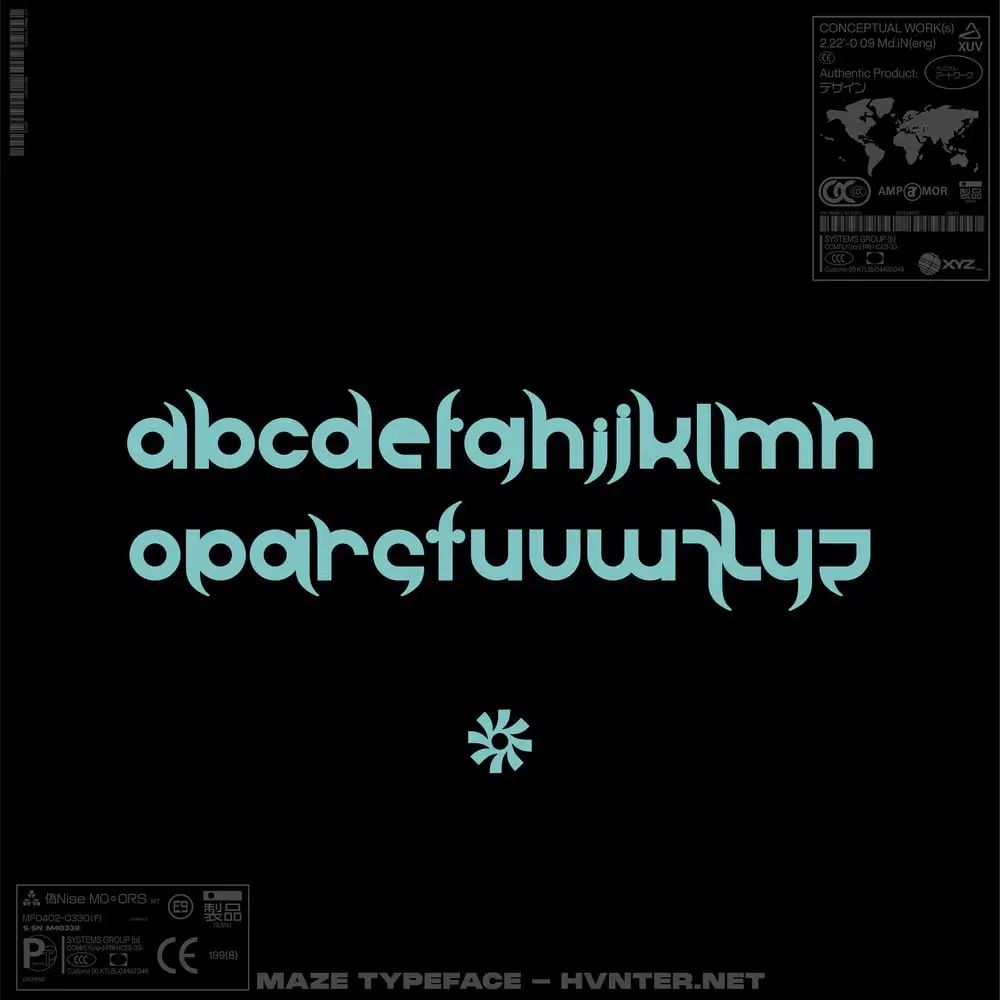
Maze Typeface By Hvnter
The Maze Typeface by Hvnter is a unique and modern font designed to elevate your design projects. With its geometric shapes and clean lines, this typeface is perfect for branding, logos, web design, and print materials.
• Weights: Light, Regular, Bold
• Ideal for creating eye-catching logos and branding materials.
• Use in web design for a modern and clean aesthetic.
• Perfect for print projects like posters, flyers, and business cards.